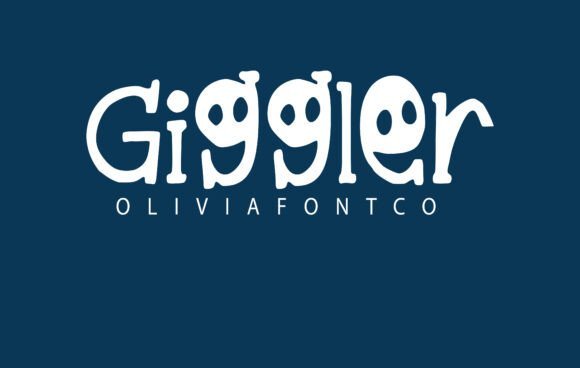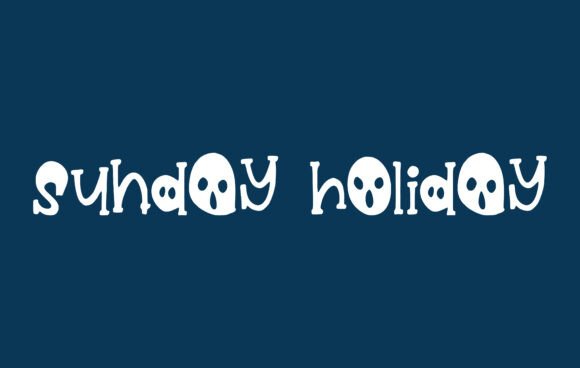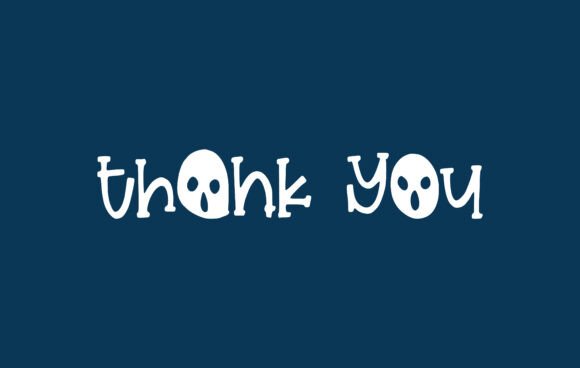
Unleashing the Joy of Giggler Font
Remember the thrill of designing a project for a children’s book or a playful advertisement, only to find the perfect font that captures the essence of fun and whimsy? For designers, that moment is like finding a treasure trove of creative possibilities. And for those who have discovered Giggler Font, that moment has become a reality.
Giggler Font is a delightful display font that embodies the spirit of playfulness and imagination. Its rounded letterforms and endearing eyes peeking out from within the characters make it the perfect choice for kids’ designs, games, logos, and any project that requires a dash of fun and personality.
For designers, Giggler Font is a valuable asset that can elevate their work and bring a smile to their clients’ faces. Its unique charm and versatility make it an essential tool in any designer’s toolkit, allowing them to create designs that are both engaging and memorable.
Giggler Font Key Features
- Unique Characteristics: Giggler Font features a playful, whimsical design with exaggerated curves and lines, making it ideal for children’s books, magazines, and other fun projects.
Giggler Font Review
Overall, I’m quite impressed with the Giggler font. It’s a fun and playful typeface that’s perfect for projects that need a bit of whimsy. ✨ The font has a great balance of elegance and quirkiness, making it suitable for a wide range of applications, from children’s books to advertising campaigns.
One of the things that works well about the Giggler font is its legibility. Even at smaller font sizes, the letters are clear and easy to read. The font also has a nice range of weights, from light to bold, which makes it versatile and easy to work with. ✨ Additionally, the font’s OpenType features allow for some really creative and interesting effects, such as ligatures and swashes.
However, there are a few limitations to consider. ⚠️ For one, the font may not be suitable for projects that require a more formal or serious tone. Additionally, some users may find the font’s irregularities to be distracting or difficult to work with. The font also has a relatively small character set, which may limit its use in certain applications.
- Fun and playful typeface
- Great balance of elegance and quirkiness
- Legible at small font sizes
- Range of weights (light to bold)
- OpenType features (ligatures, swashes)
Tips for Getting the Most Out of Giggler Font
Combine Giggler Font with other fonts and design elements to add depth and interest to your design.
Use Giggler Font in creative ways, such as for headings, titles, or emphasis text, to draw attention to important information.